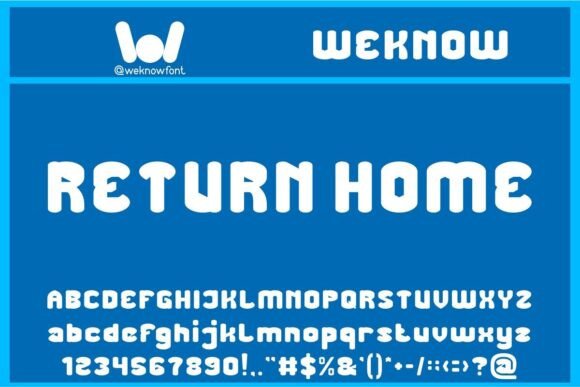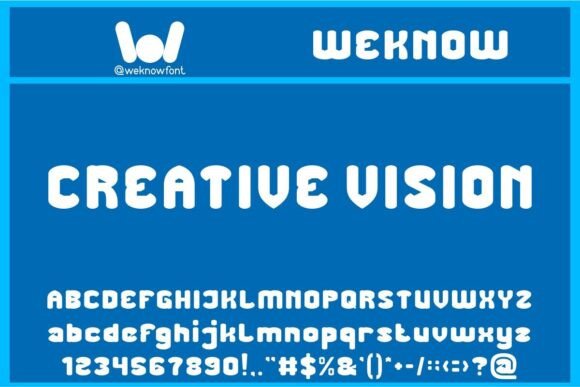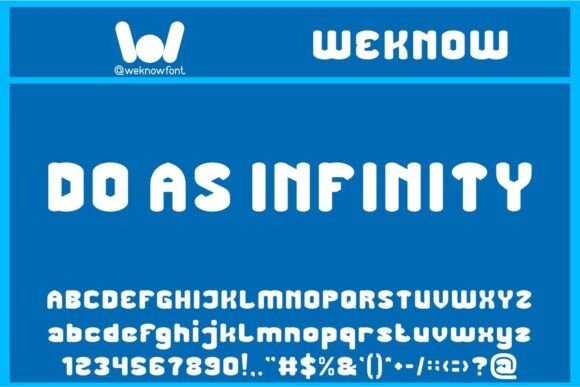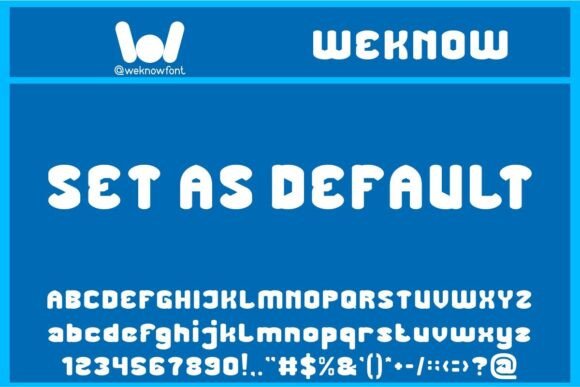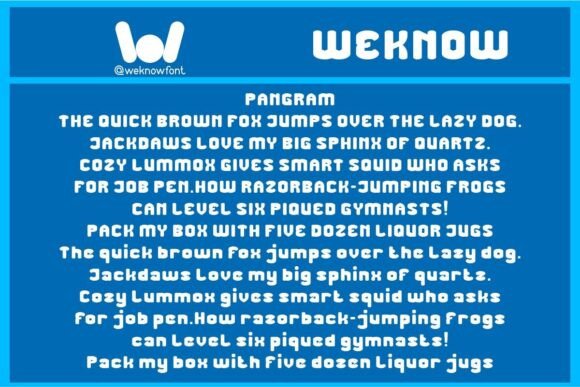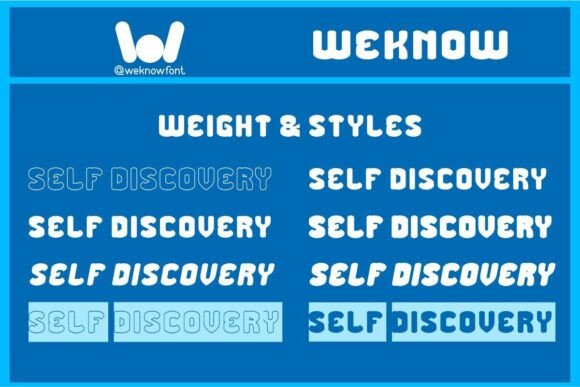
Discovering the Perfect Design Resource: Self Discovery Font
Have you ever stared at a blank canvas, unsure of where to begin, until a spark of inspiration hits and everything falls into place? For designers, this moment is what drives us to create something truly remarkable. For those seeking the perfect design resource, look no further than the captivating Self Discovery Font. With its unique blend of sci-fi and playfulness, this display font is an ideal choice for making a statement in any creative project.
Whether you’re working on a music festival flyer, a comic book, or a bold brand identity, Self Discovery Font is sure to make your design stand out. Its smooth, sharp edges and versatile style make it a high-quality design resource that’s perfect for any creative endeavor. And the best part? You can download it for free, complete with a transparent background, making it easy to integrate into your design.
Key Features of Self Discovery Font
- High-quality design resource ideal for creative projects, offering a unique and expressive aesthetic.
- Comes in a transparent background, allowing for seamless integration with various design elements.
- Features a clean and modern design, with a clear and legible font style suitable for a wide range of applications.
Honest Review: Self Discovery Font
I recently stumbled upon the Self Discovery Font and I’m excited to share my honest review with you. As a designer, I’m always on the lookout for high-quality design resources that can elevate my creative projects. In this case, the Self Discovery Font did not disappoint.
- ✨ High-quality design: The font is well-designed, with a clean and modern aesthetic that works well for a variety of creative projects.
- ✨ Transparent background: The transparent background option is a nice touch, allowing for easy customization and integration with other design elements.
- ⚠️ Limited character set: The font only includes a limited character set, which may not be suitable for all types of creative projects.
- ⚠️ Not ideal for body text: While the font is great for headings and titles, it may not be the best choice for body text due to its relatively small character set.
Overall, I’m impressed with the Self Discovery Font and would recommend it for designers looking for a high-quality, creative font for their projects. While it may have some limitations, it’s a great resource to have in your design toolkit.
How to Use Self Discovery Font
The Self Discovery Font is a high-quality design resource ideal for creative projects that require a touch of elegance and sophistication. With a transparent background, this font is perfect for adding a professional touch to your designs.
To get the most out of the Self Discovery Font, use it in combination with other design elements, such as images and graphics, to create a visually appealing design.
Compared to Self Discovery Font, Aurelia Script has a more refined and sophisticated look, making it suitable for more formal or professional projects.
Great Vibes is a modern, handwritten font designed for use in creative projects that need a fun and energetic feel. It’s perfect for use in design resources like posters, flyers, or social media graphics. The font is available for free download and features a transparent background, making it easy to use in any design.
Can I use the Self Discovery Font with a transparent background?
Yes, the Self Discovery Font is designed to work well with transparent backgrounds. You can use the font in conjunction with a transparent background in your design project, making it perfect for creative projects that require a clean and modern look.